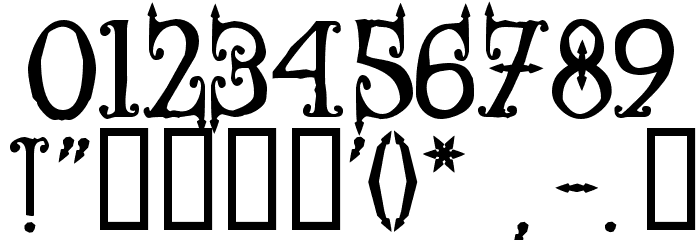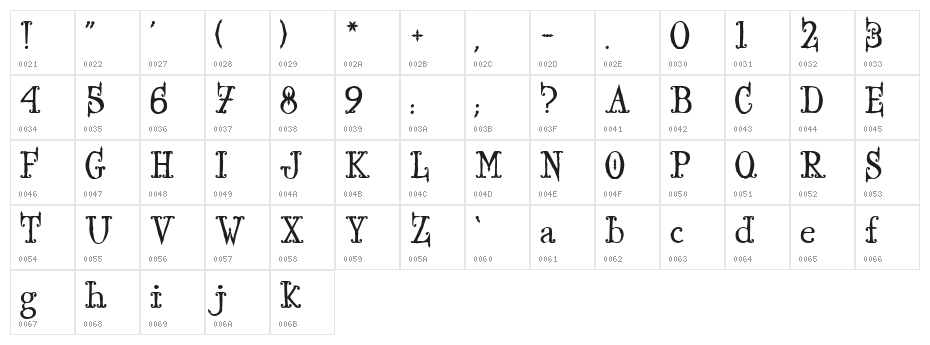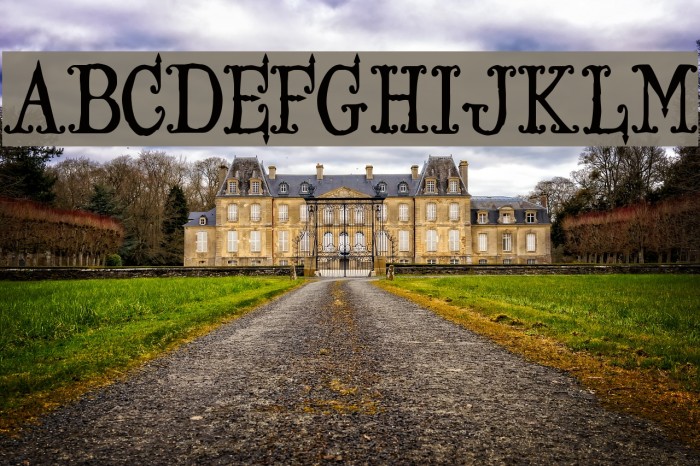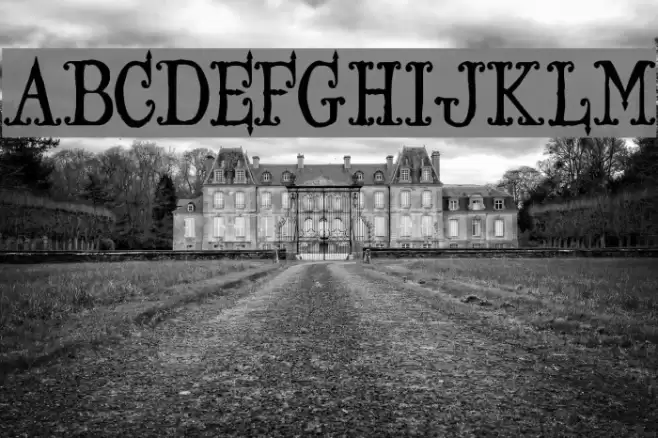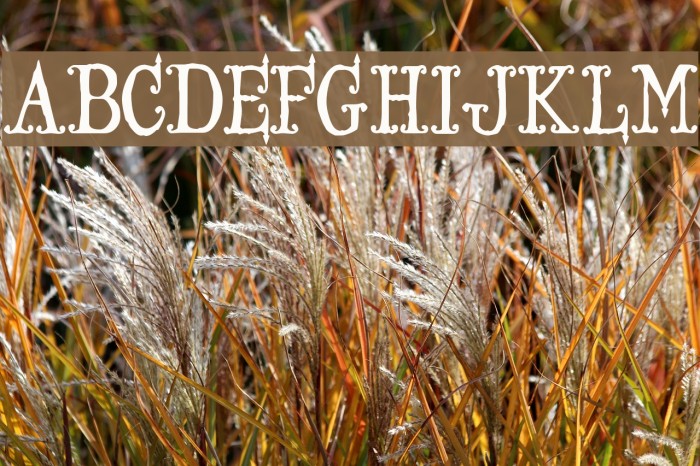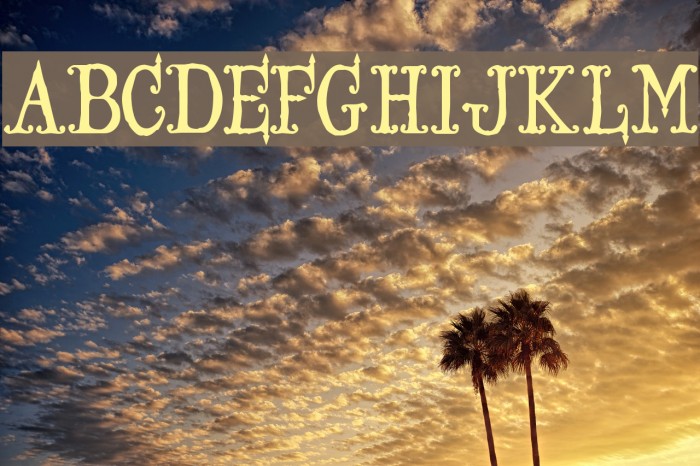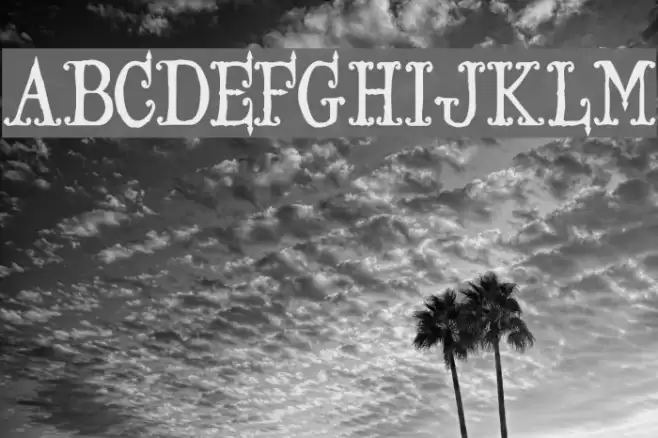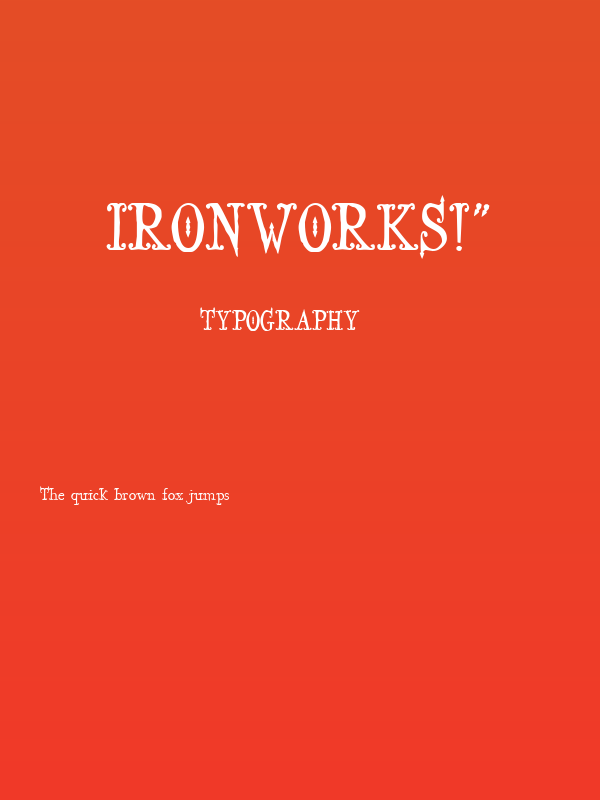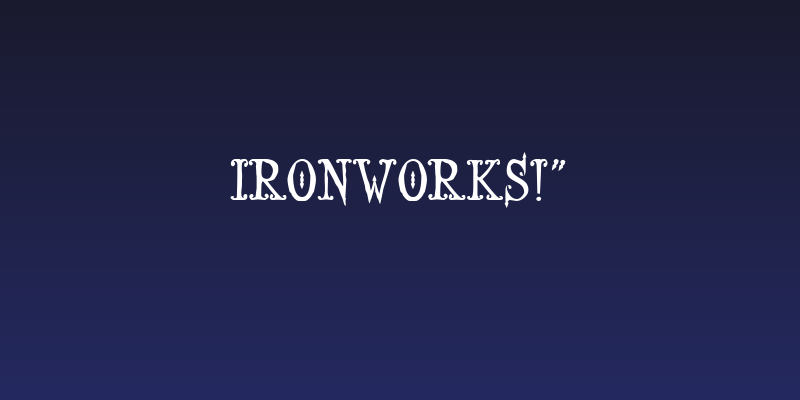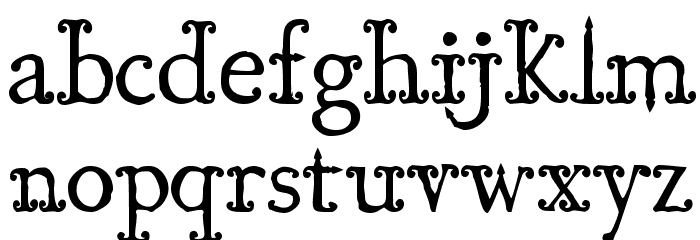
Ironworks!" Font
Ironworks!" Description
This font features a distinctive decorative style with ornate, pointed serifs and a bold presence. The characters are embellished with unique, spiked accents that give it a vintage, industrial feel reminiscent of wrought iron designs. The uppercase and lowercase letters maintain a consistent style, with the uppercase being slightly more pronounced. Numbers and special characters follow the same decorative theme, making them stand out. The overall design is bold and eye-catching, suitable for projects that require a strong, historical, or steampunk aesthetic.
| Overall Style | Vintage, Industrial |
| Proposed Projects | Ideal for use in branding, posters, signage, and any project seeking a vintage or industrial theme. |